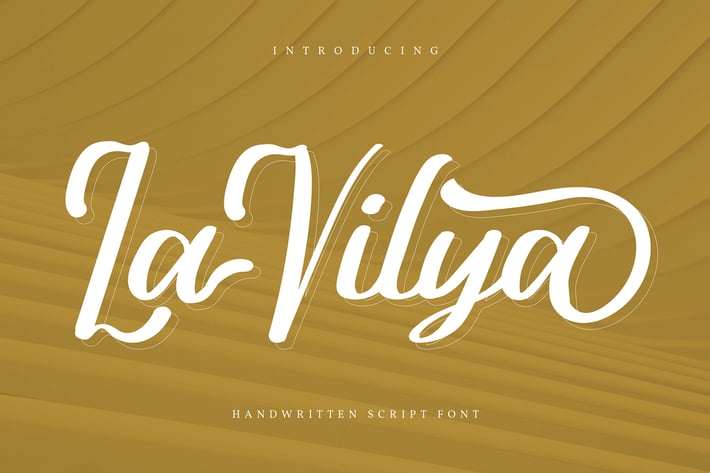
La Vilya | Handwritten Script Font
La Vilya | Handwritten Script Font with a calligraphy style, So beautiful on invitation like greeting cards, branding materials, business cards, quotes, posters, and more!